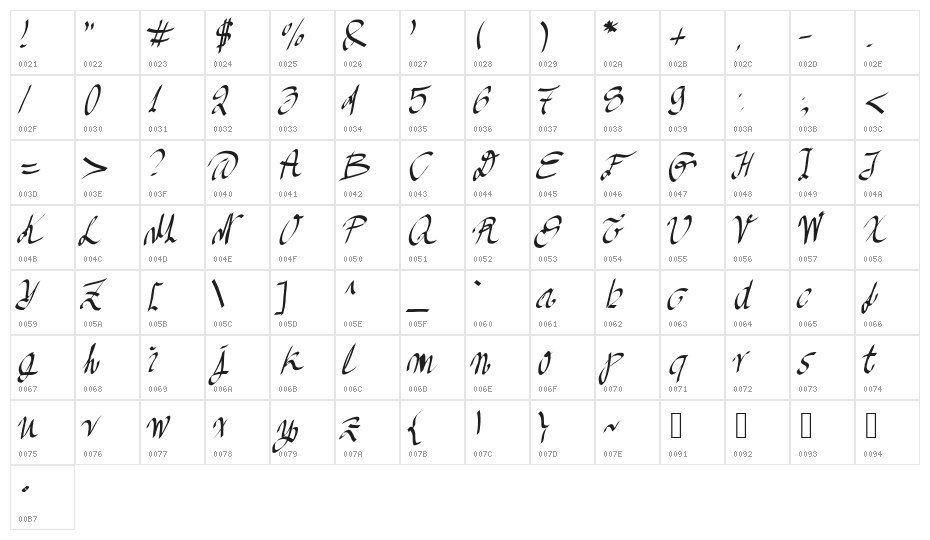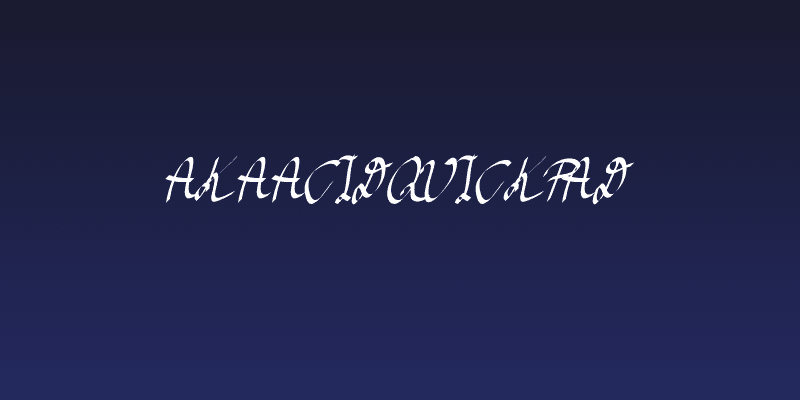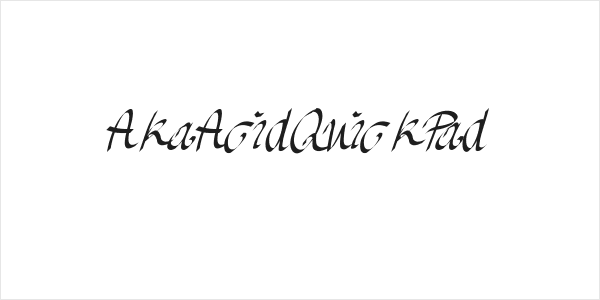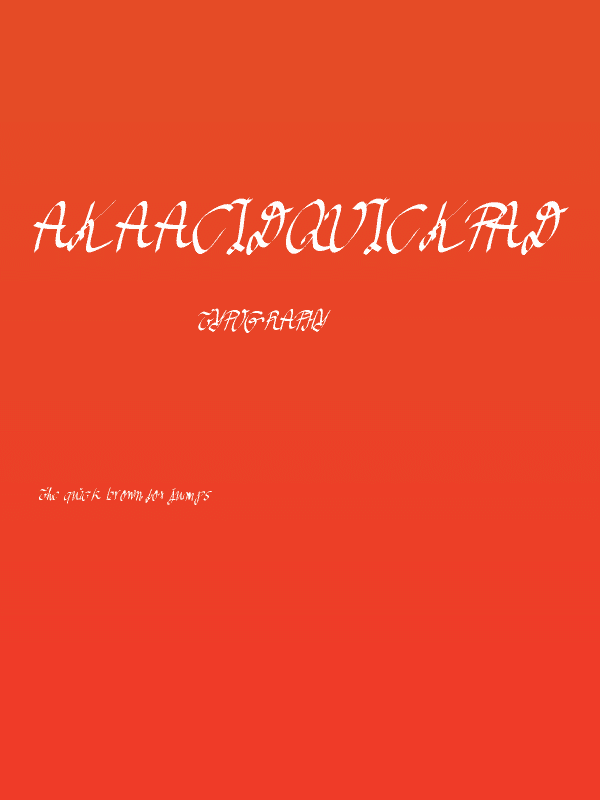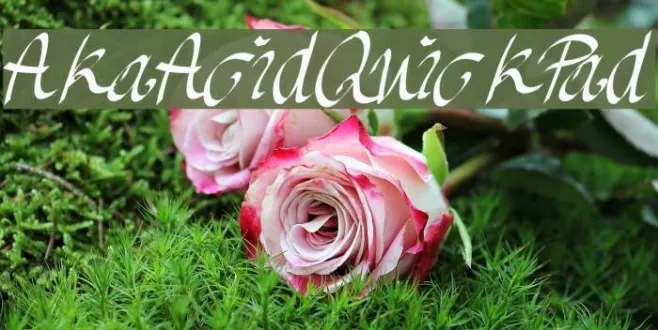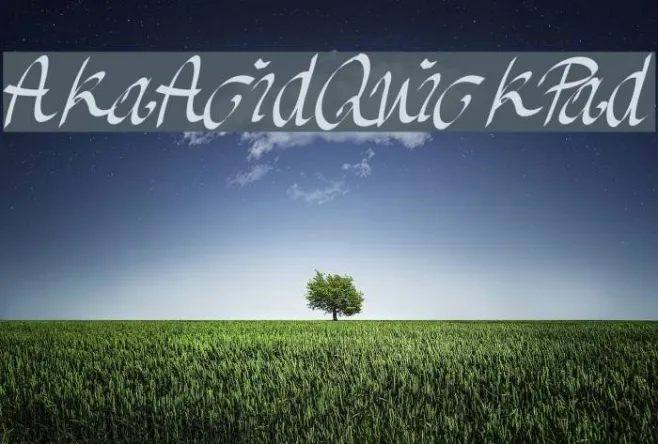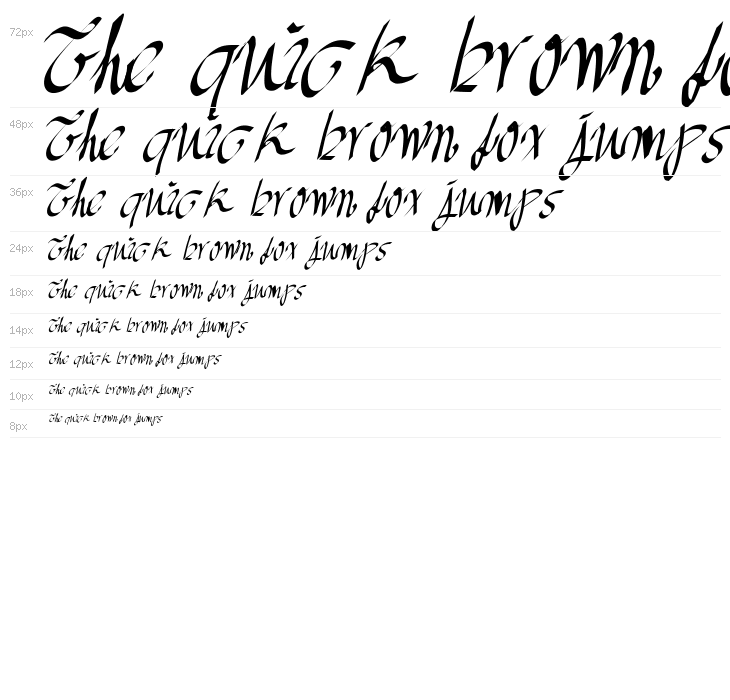
AkaAcidQuickPad Font
AkaAcidQuickPad Description
This font exhibits a dynamic and fluid script style, characterized by its elegant and flowing letterforms. The uppercase letters are bold and sweeping, with distinctive flourishes that give a sense of movement and grace. The lowercase letters maintain a consistent style, with smooth curves and a slightly slanted orientation, enhancing the handwritten feel. Numbers and special characters are crafted with the same attention to detail, ensuring a cohesive look across all elements. The overall impression is one of sophistication and artistic flair, making it suitable for projects that require a touch of elegance and personality.
| Overall Style | Elegant, Artistic |
| Proposed Projects | Ideal for wedding invitations, greeting cards, branding projects, and elegant packaging designs. |